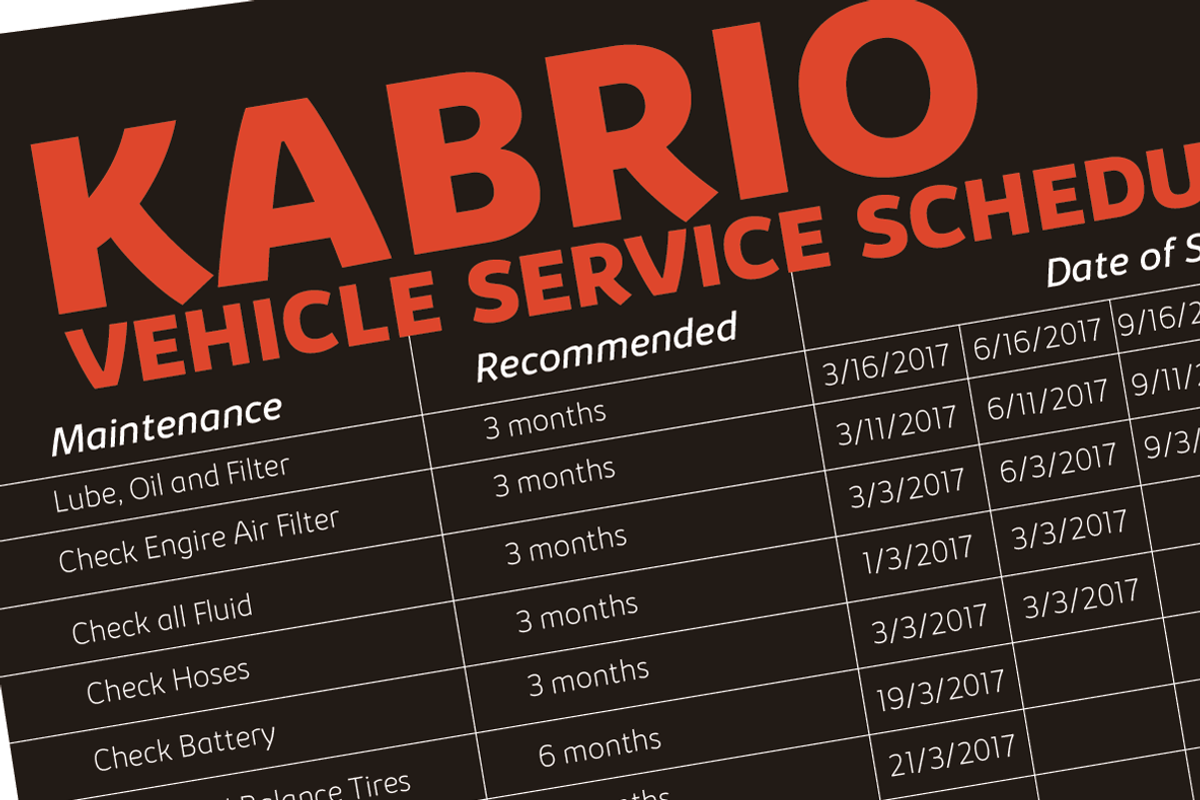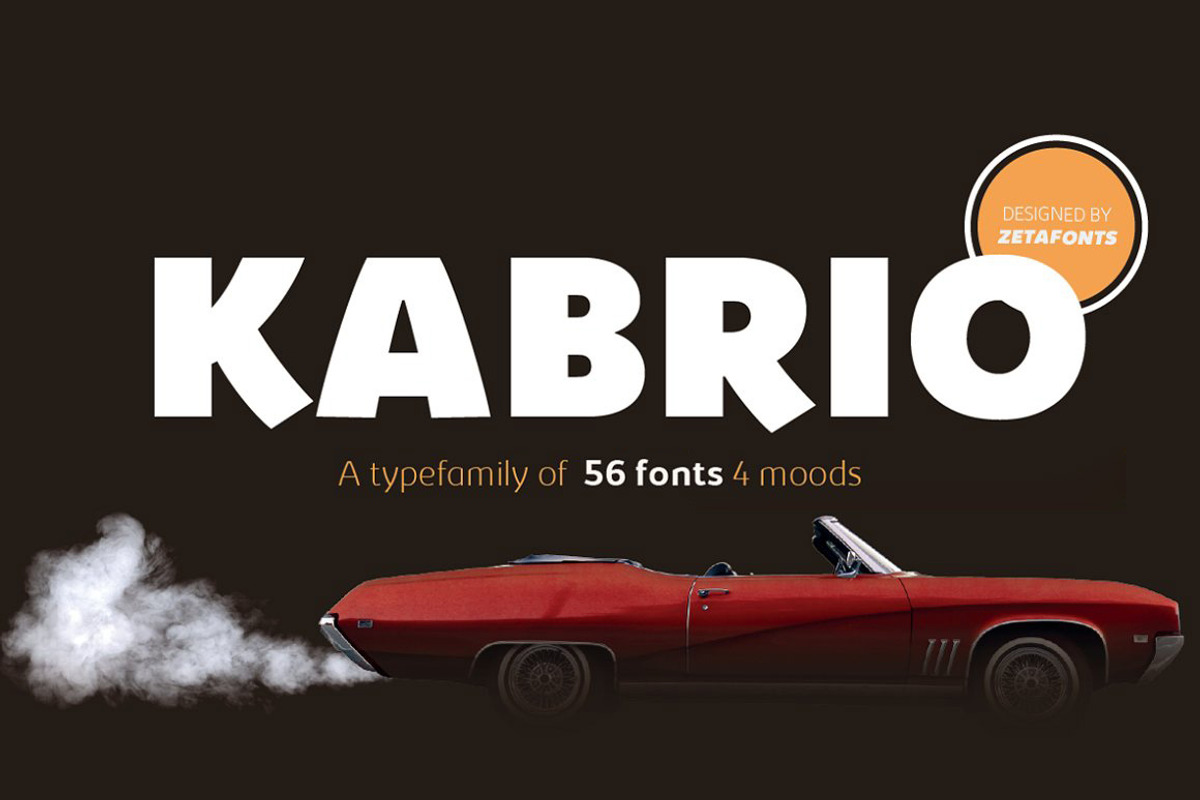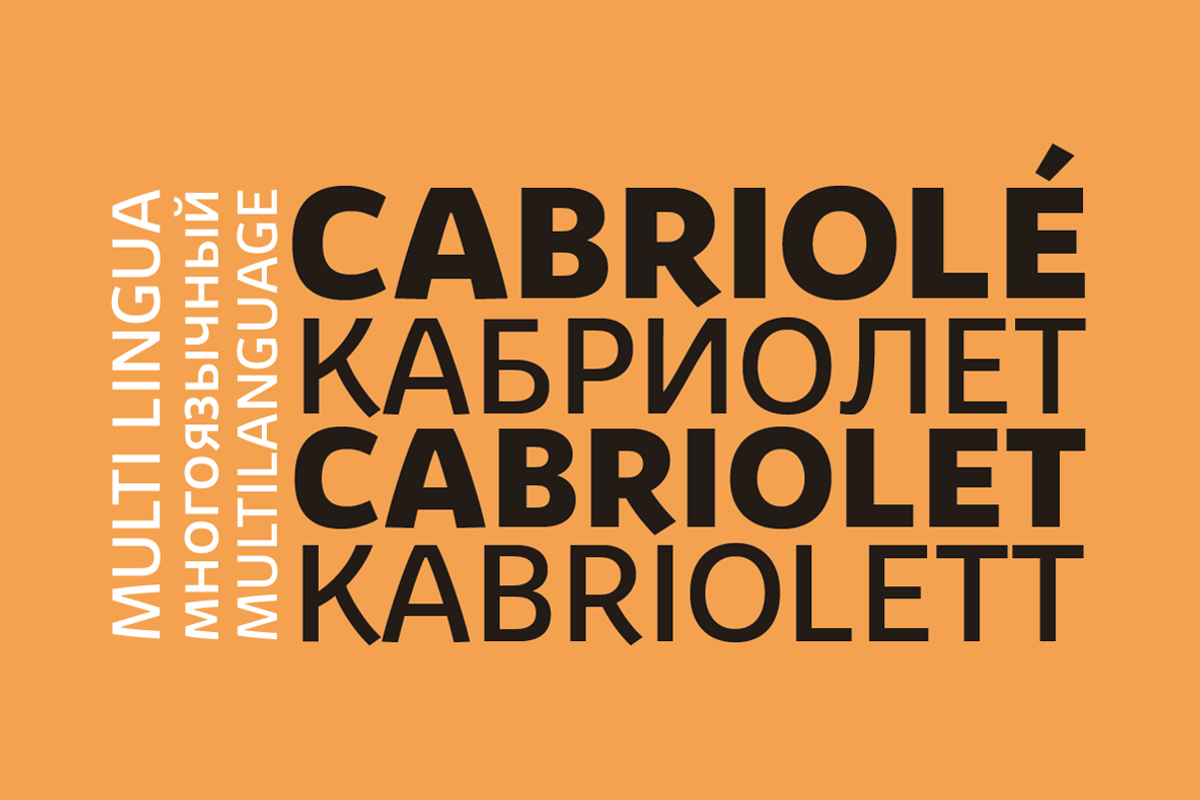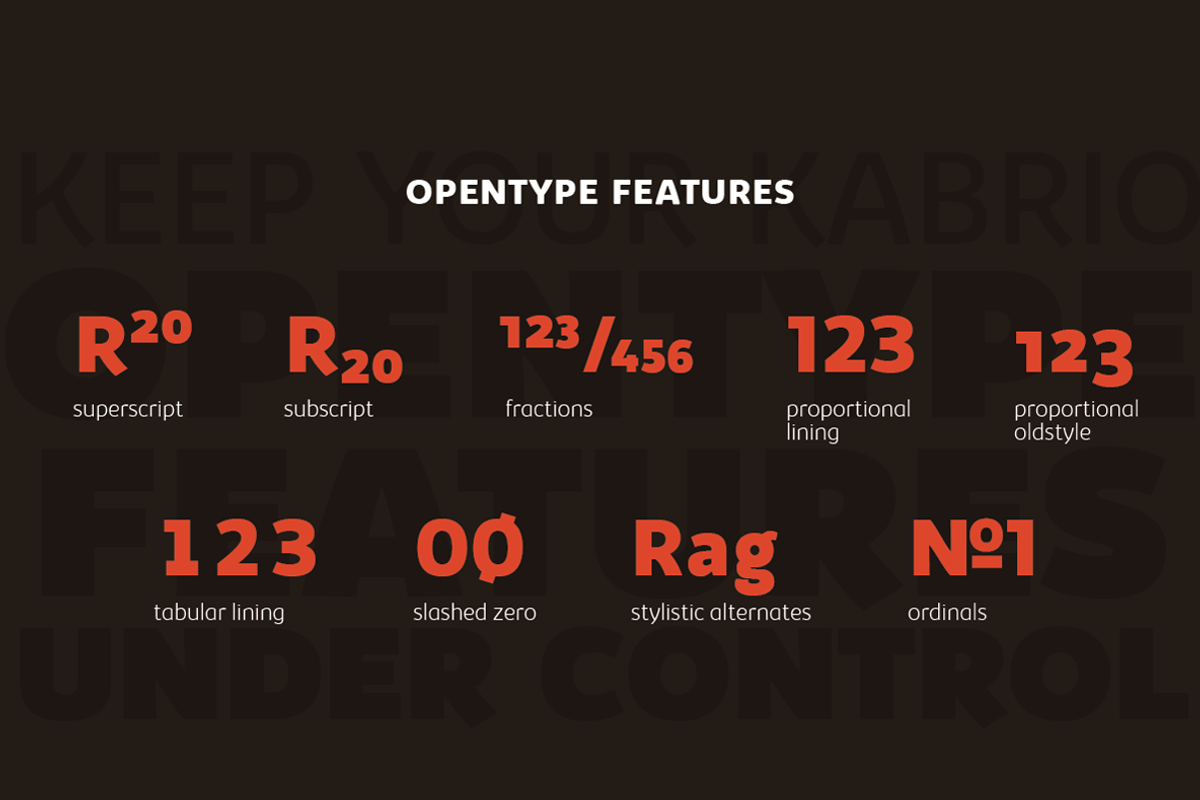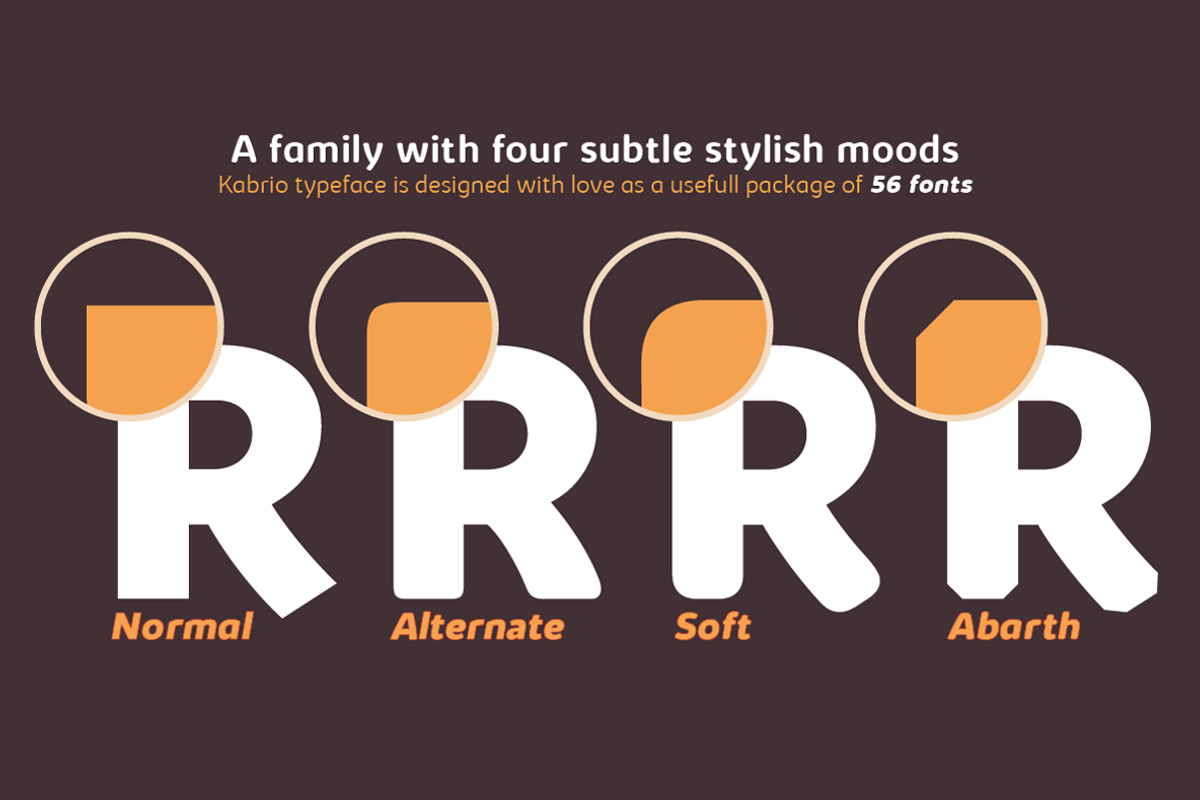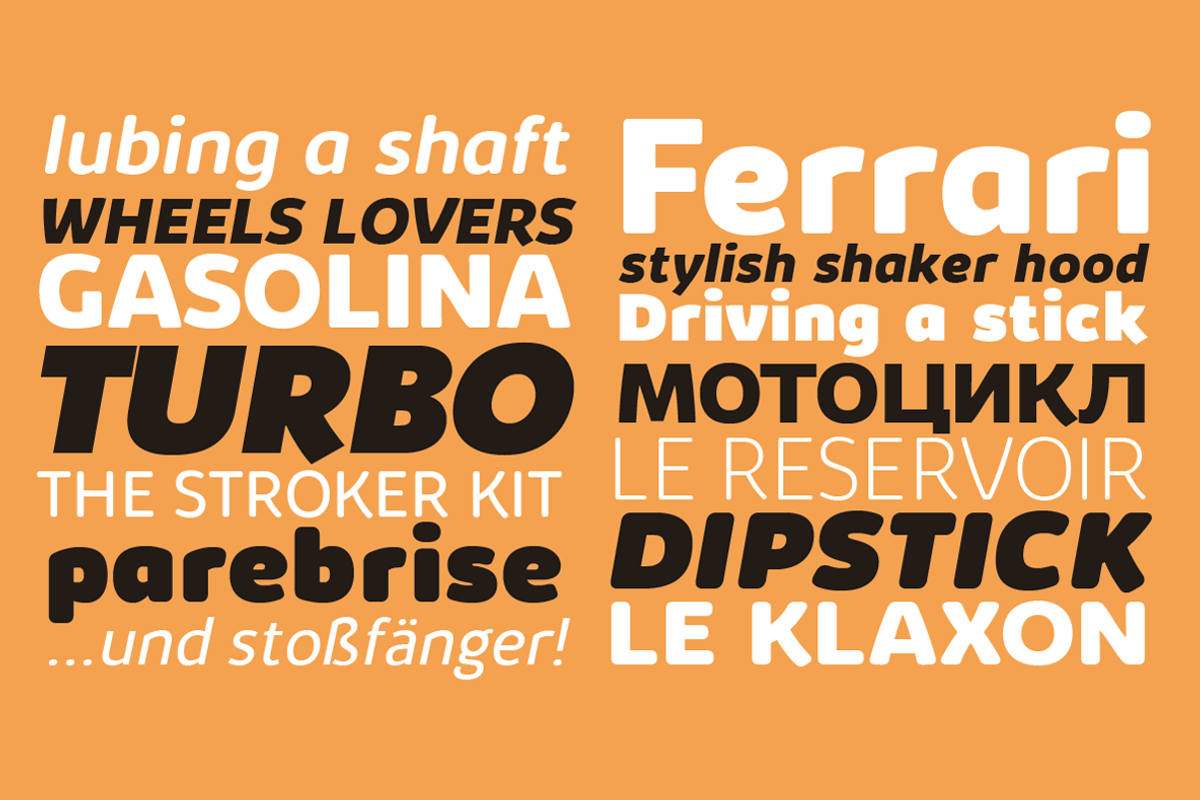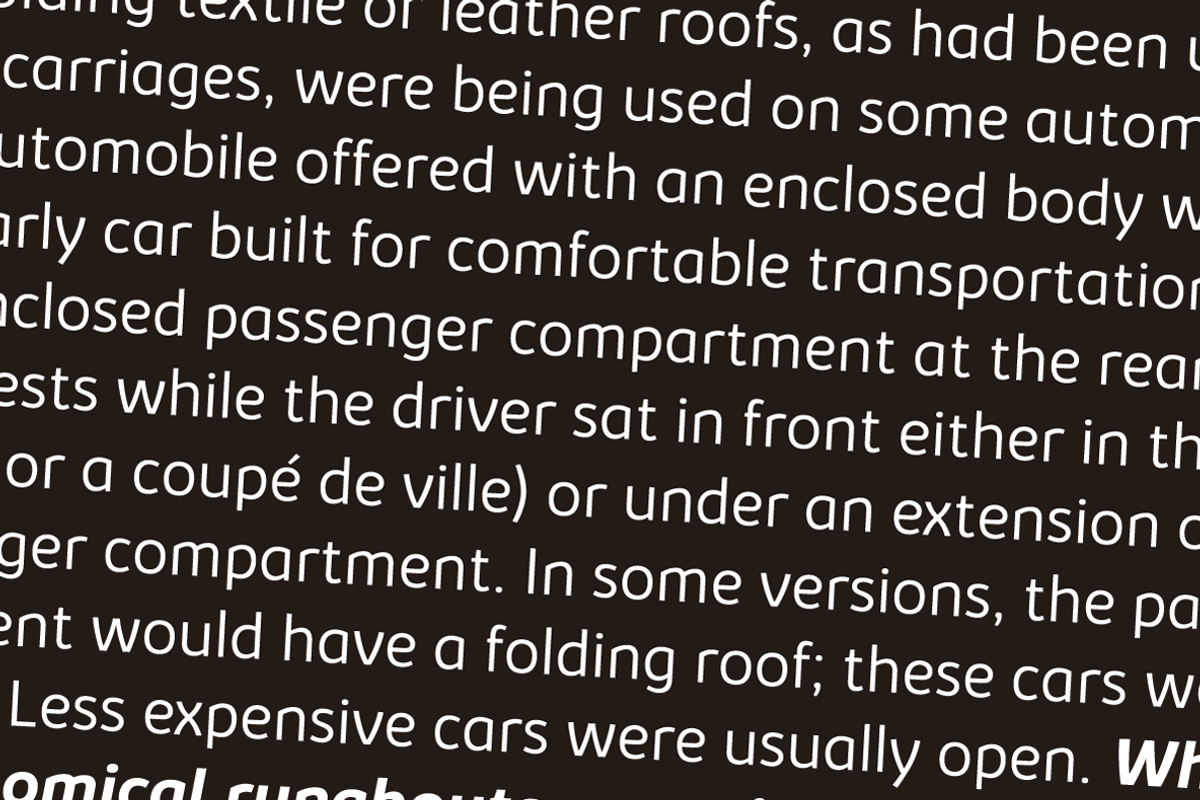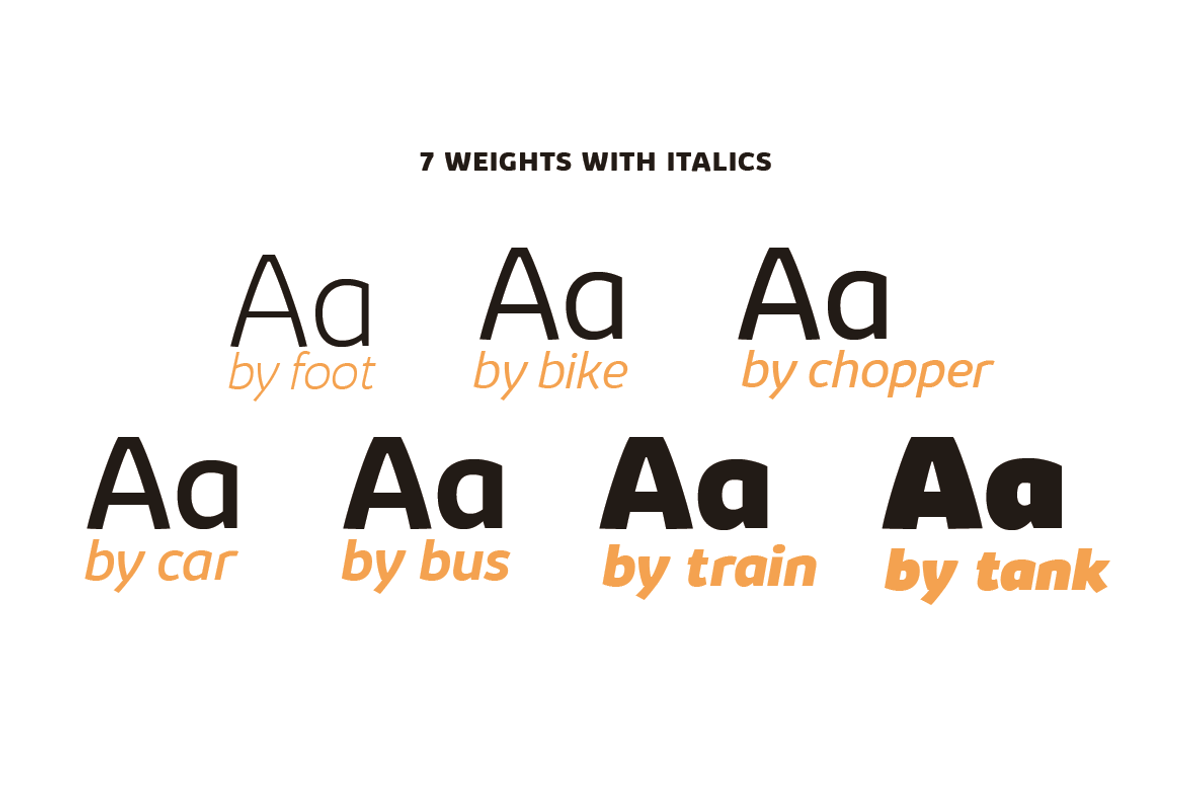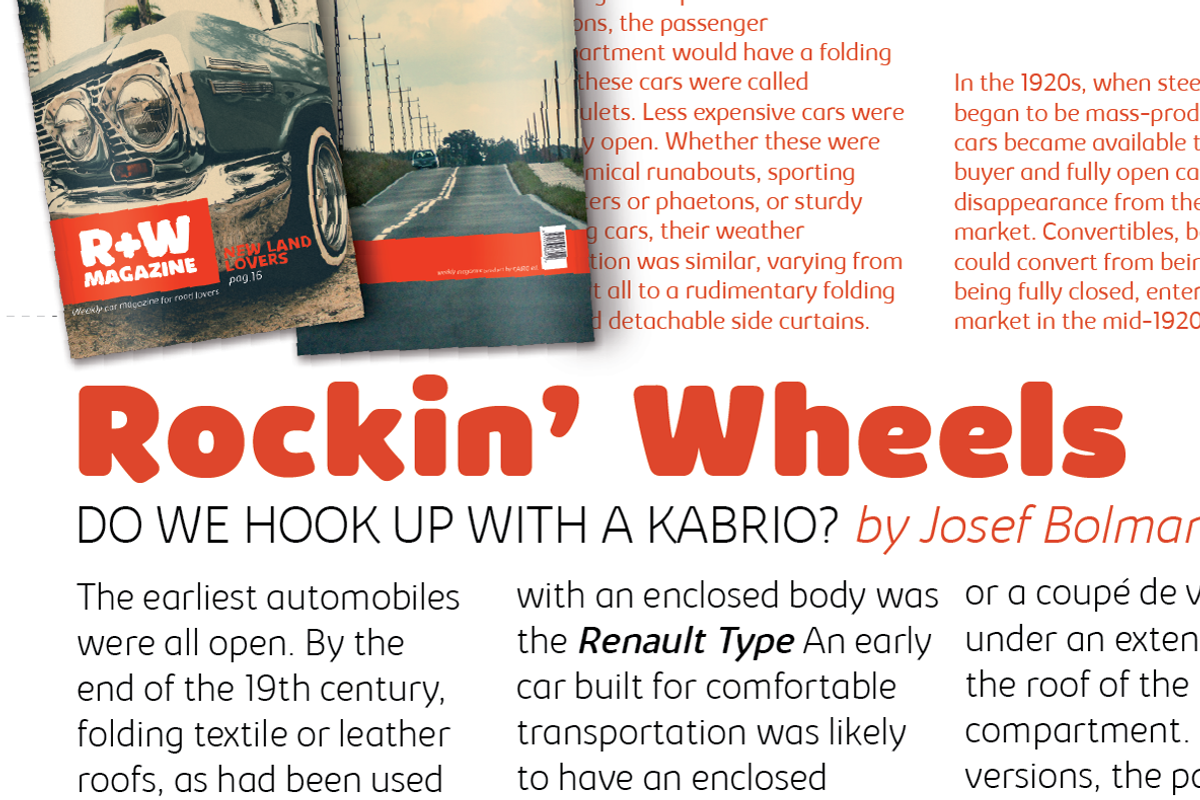
Kabrio - 56 Fonts
Designed by Cosimo Lorenzo Pancini and Andrea Tartarelli, Kabrio is a sans serif typeface for the lovers of minimal design, and great curves. Kabrio features four different corner treatments to offer variation in display and logo use: the “alternate” variant features slightly rounded corners, that become even more round in the “soft” variant. “Abarth” features cut corner for a more mechanical, cold look. Each variant comes in seven weights with matching italics, for a grand total of 56 weights to add to your typographic palettes. All Kabrio weights feature an extended character set with accents to cover over forty European languages as well as Russian and Bulgarian Cyrillc. OpenType features include stylistic alternates and a wide arrange of numerals (oldstyle, tabular, tabular oldstyle, superior, inferior, fractions) to allow you maximum flexibility to use Kabrio in number-heavy documents: spreadsheets, tables, timetables.